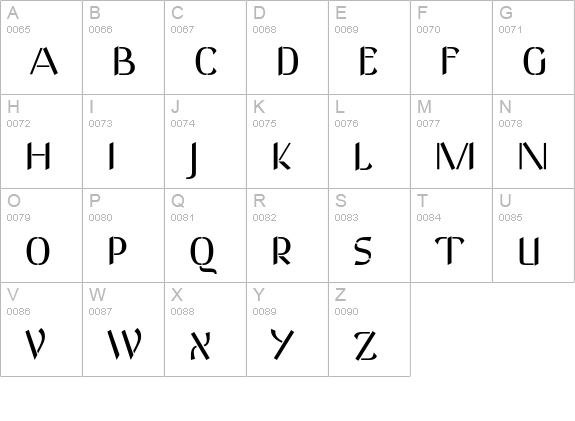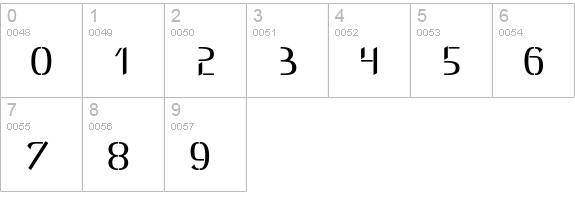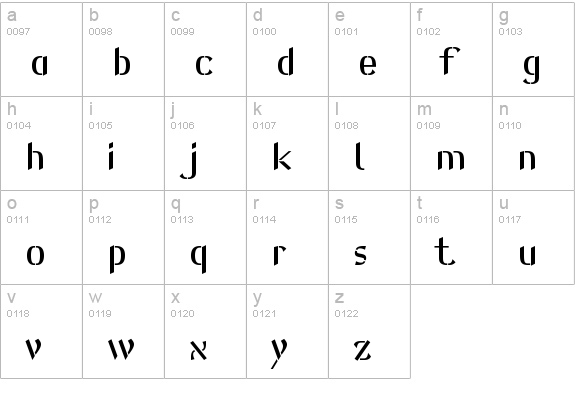
Bijoux-Bold Font Details
Bijoux-Bold is a strong, high-contrast variant in the Bijoux typeface family \xE2\x80\x94 well suited to headlines, attention-grabbing titles, and strong calls-to-action.
Bijoux-Bold font is a stunning and elegant typeface that exudes a sense of sophistication and modernity. Its bold and stylish letterforms make it perfect for creating striking headlines, titles, and logos that demand attention. The clean lines and sharp edges of Bijoux-Bold font give it a sleek and polished look, making it a versatile choice for a wide range of design projects. What makes Bijoux-Bold font even more appealing is that it is available for free download at FontsMarket.com. This means that you can easily access this beautiful font and incorporate it into your designs without any cost. Whether you are working on a personal project or a professional design, Bijoux-Bold font is sure to elevate your work and make a bold statement. Download it now and add a touch of elegance to your creations!